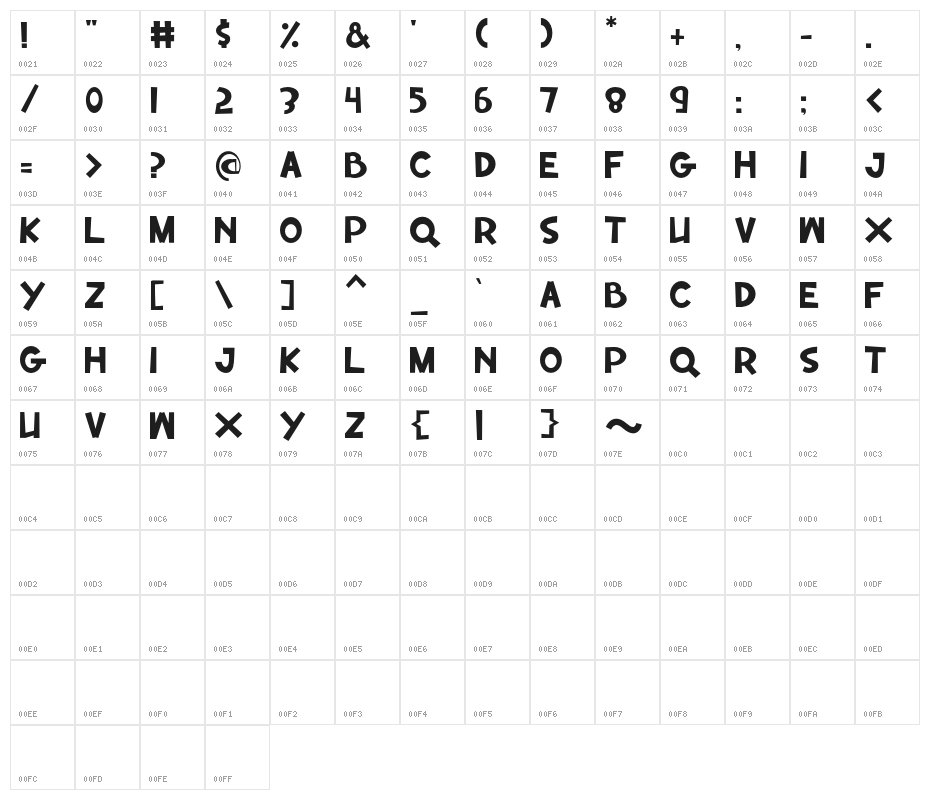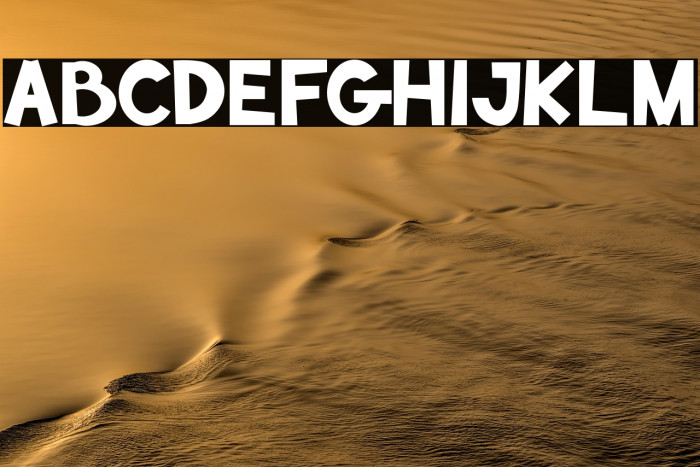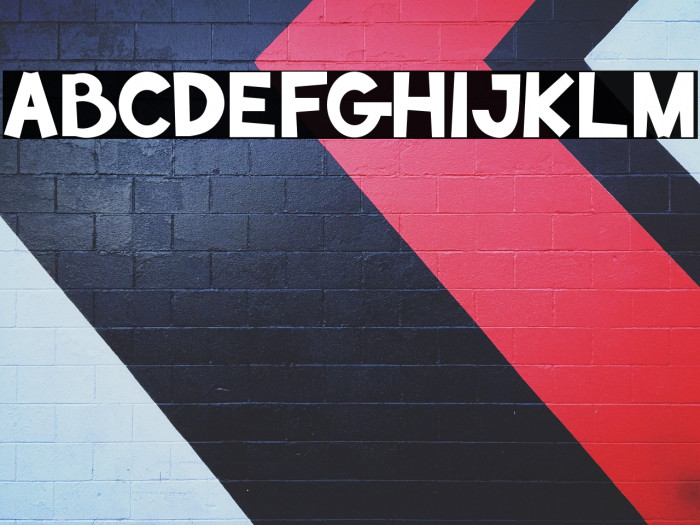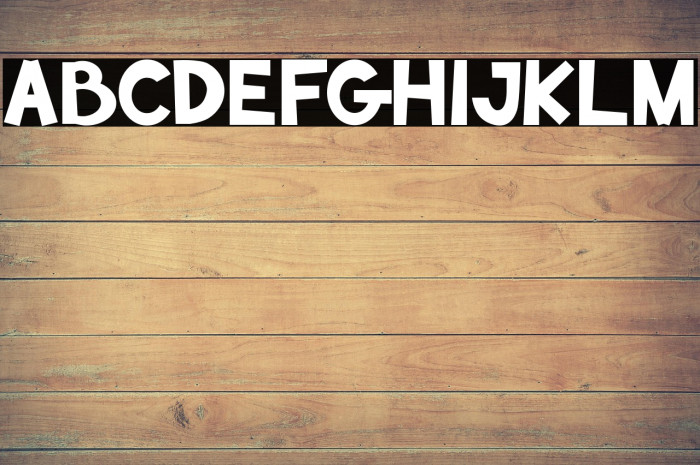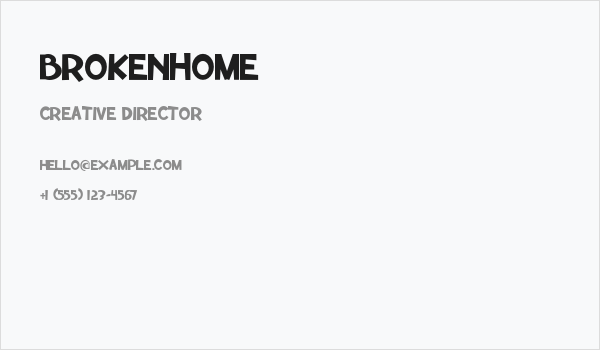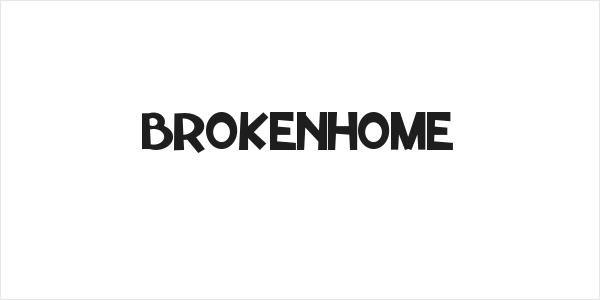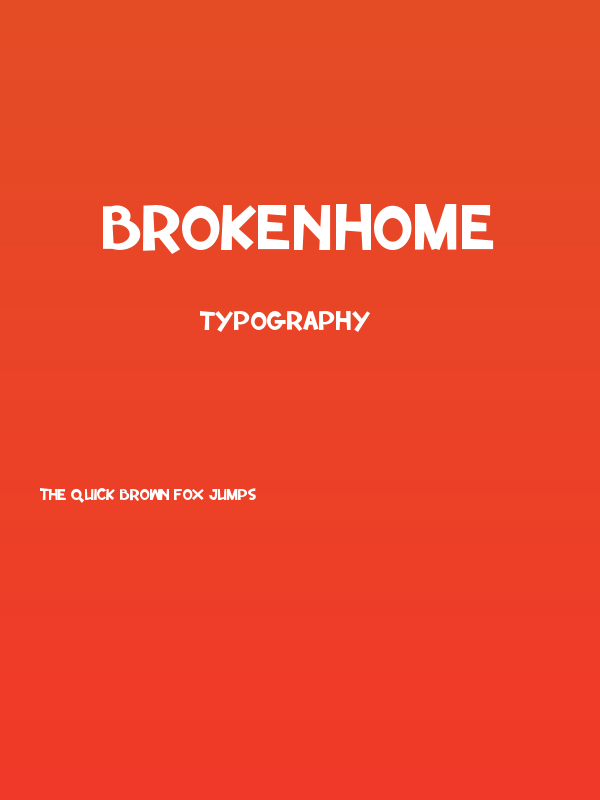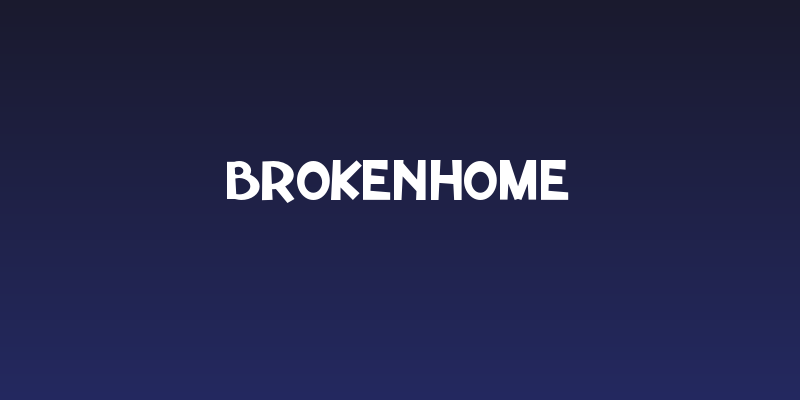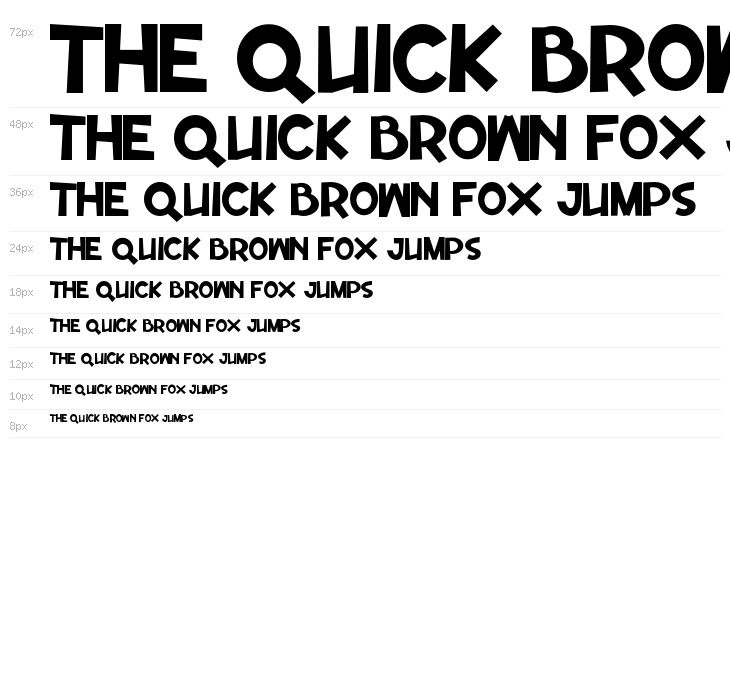
BrokenHome Font
BrokenHome Description
This font features a bold and playful design with a distinctly irregular and quirky style. The characters are thick and have a hand-drawn appearance, giving them a lively and dynamic feel. The uppercase letters are bold and slightly uneven, adding to the whimsical nature of the font. The numbers and special characters maintain this playful aesthetic, making the font suitable for creative and informal projects. The overall look is energetic and fun, with a touch of retro charm that can add personality to any design.
| Overall Style | Playful, Quirky, Retro |
| Use Case | Headlines, Posters, Branding |
| Proposed Projects | Ideal for children's books, comic strips, playful branding, and creative posters. |